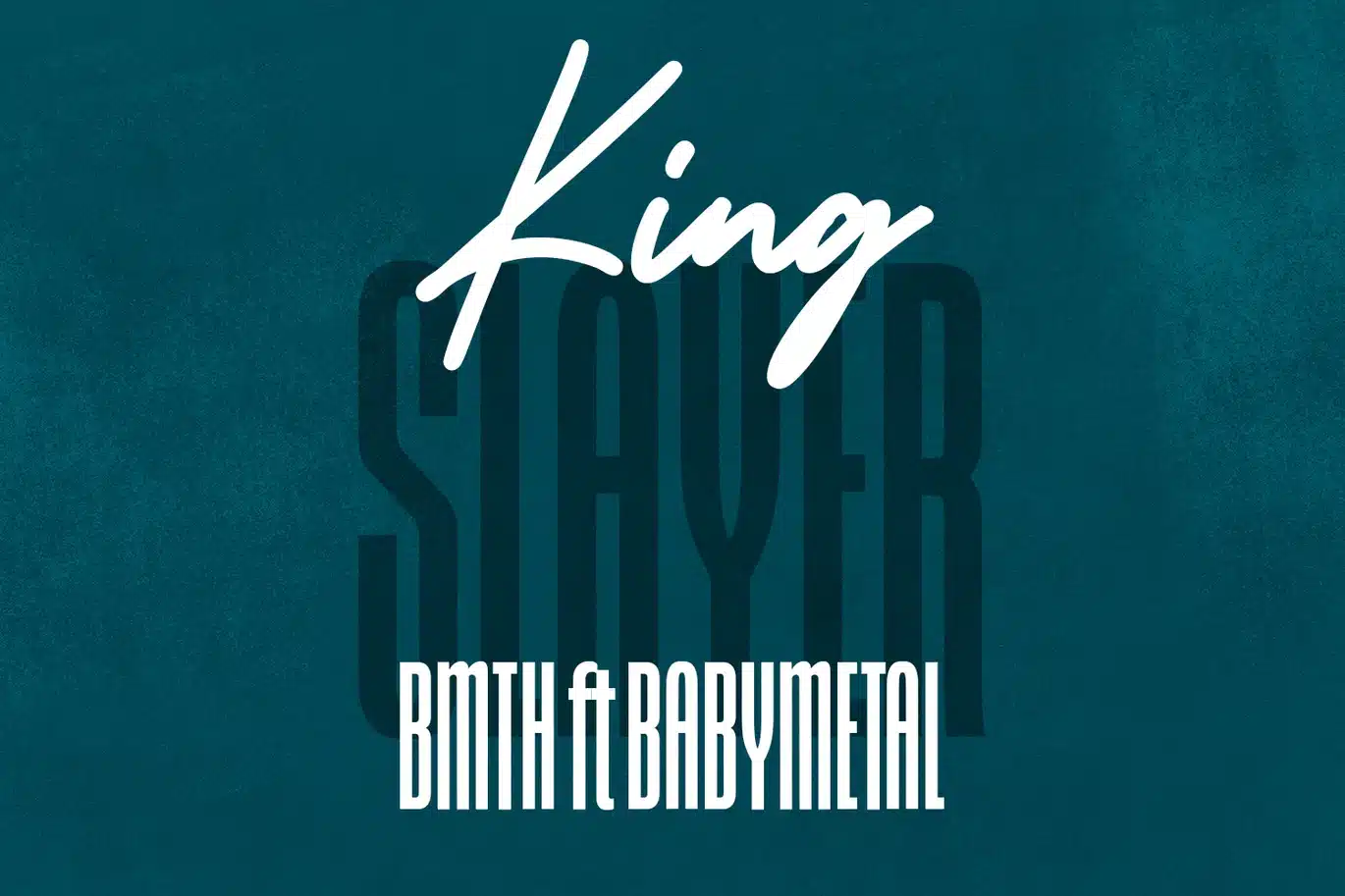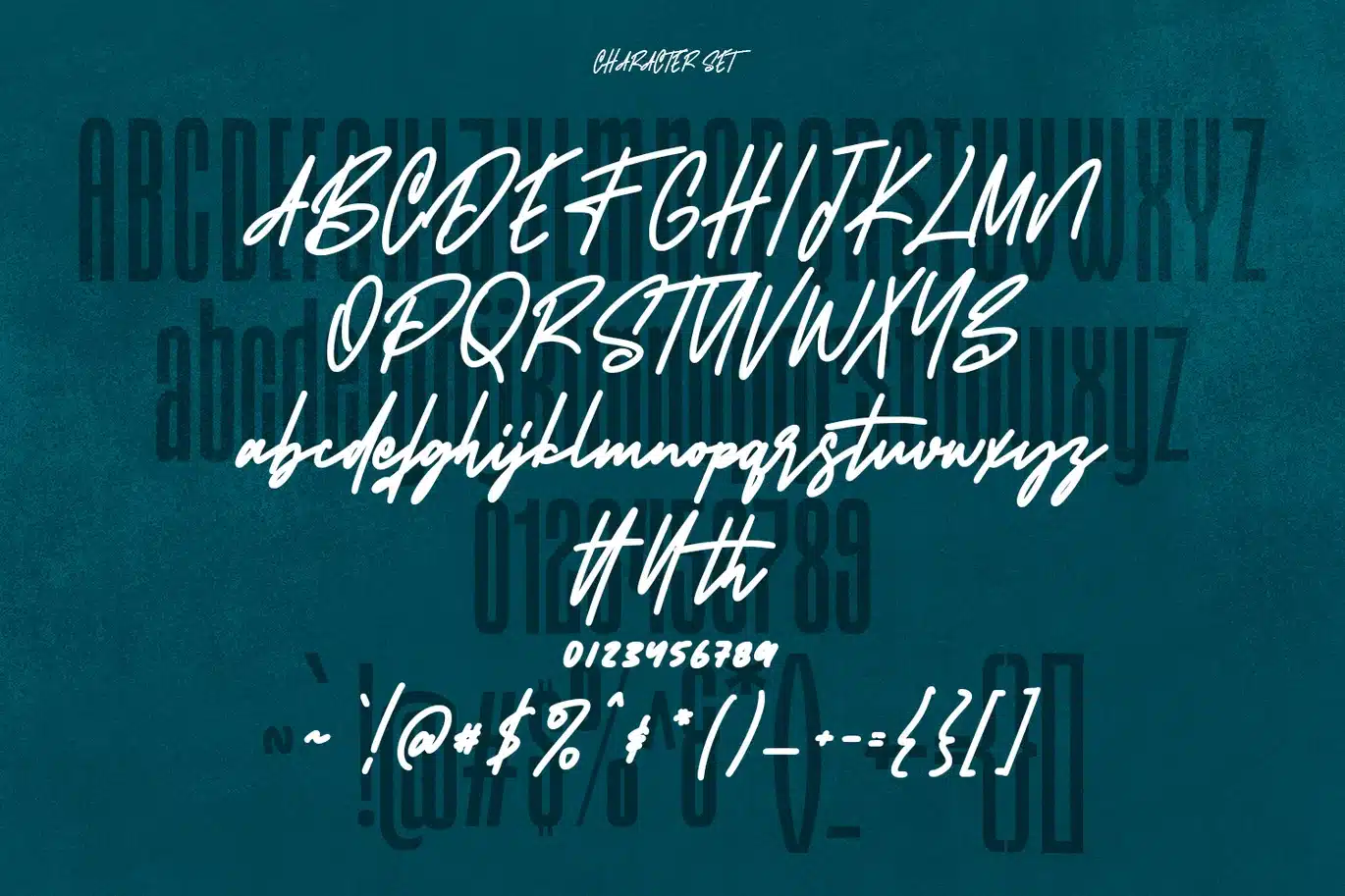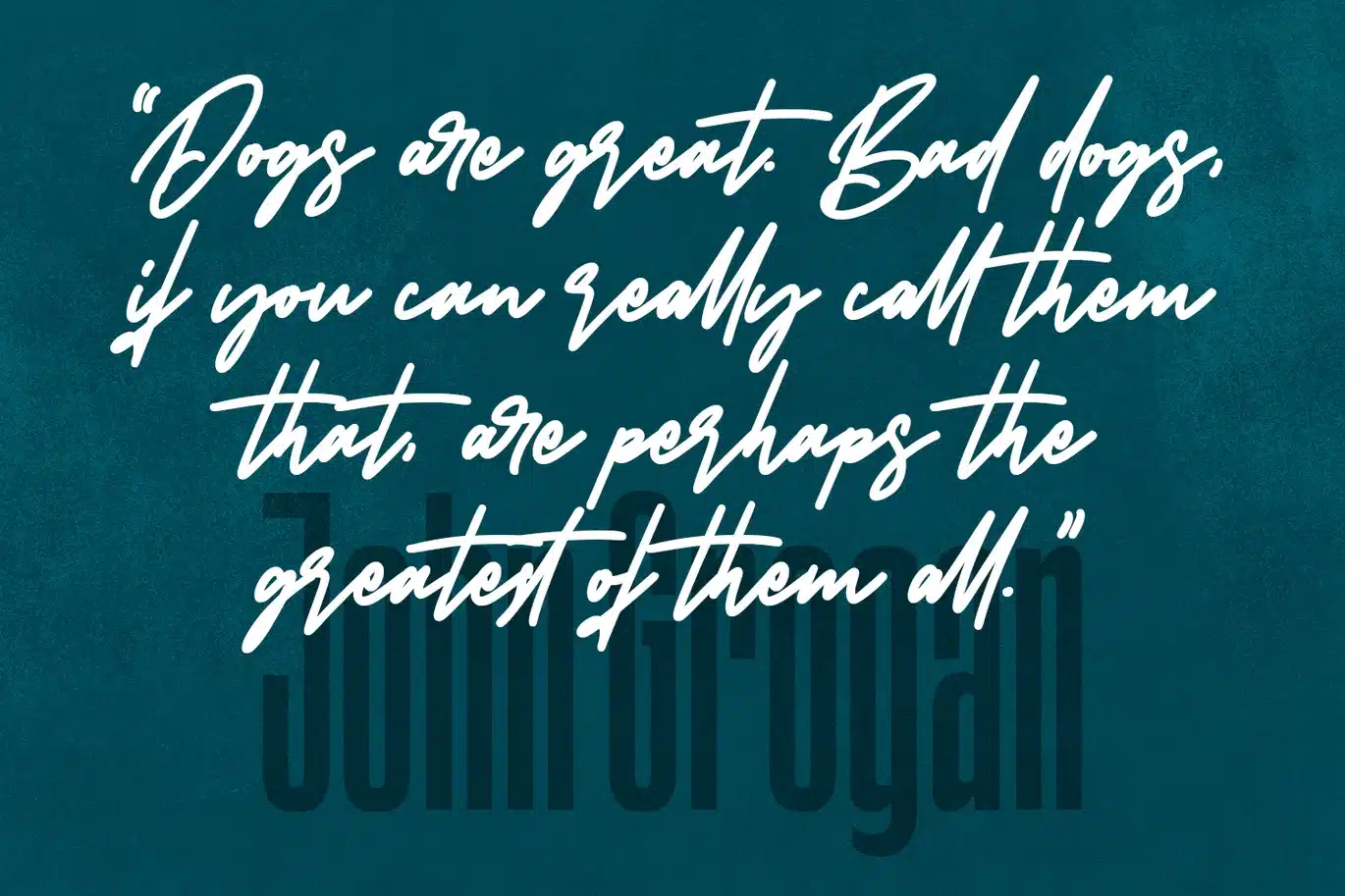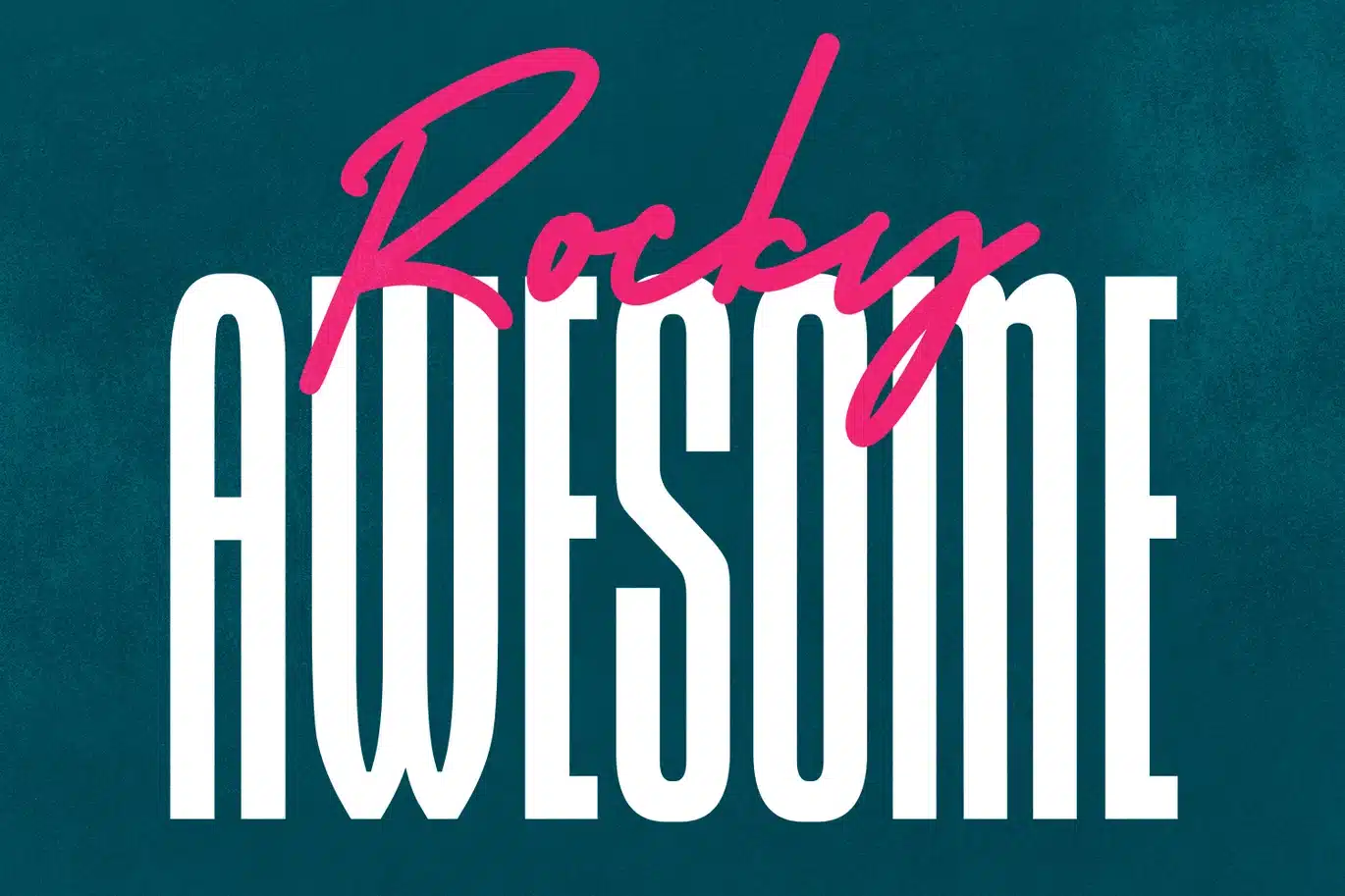
Styxes Font Duo Script Display
Styxes is an expressive signature script and sans font duo. With clean and condensed stroke, fun character with a bit of ligatures and alternates. To give you an extra creative work. Styxes font support multilingual more than 100+ language. This font is good for logo design, Social media, Movie Titles, Books Titles, a short text even a long text letter and good for your secondary text font. Make a stunning work with Styxes font.